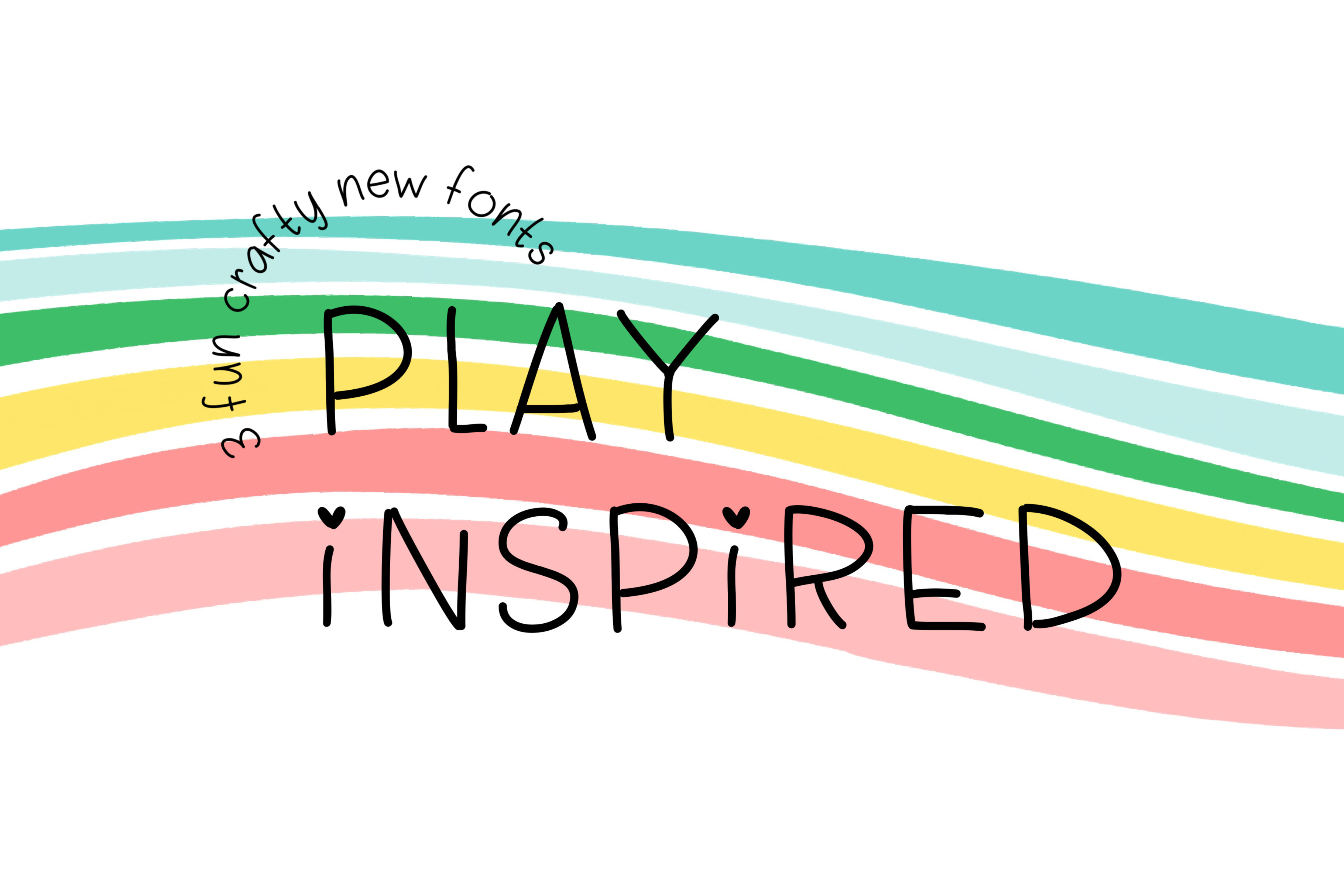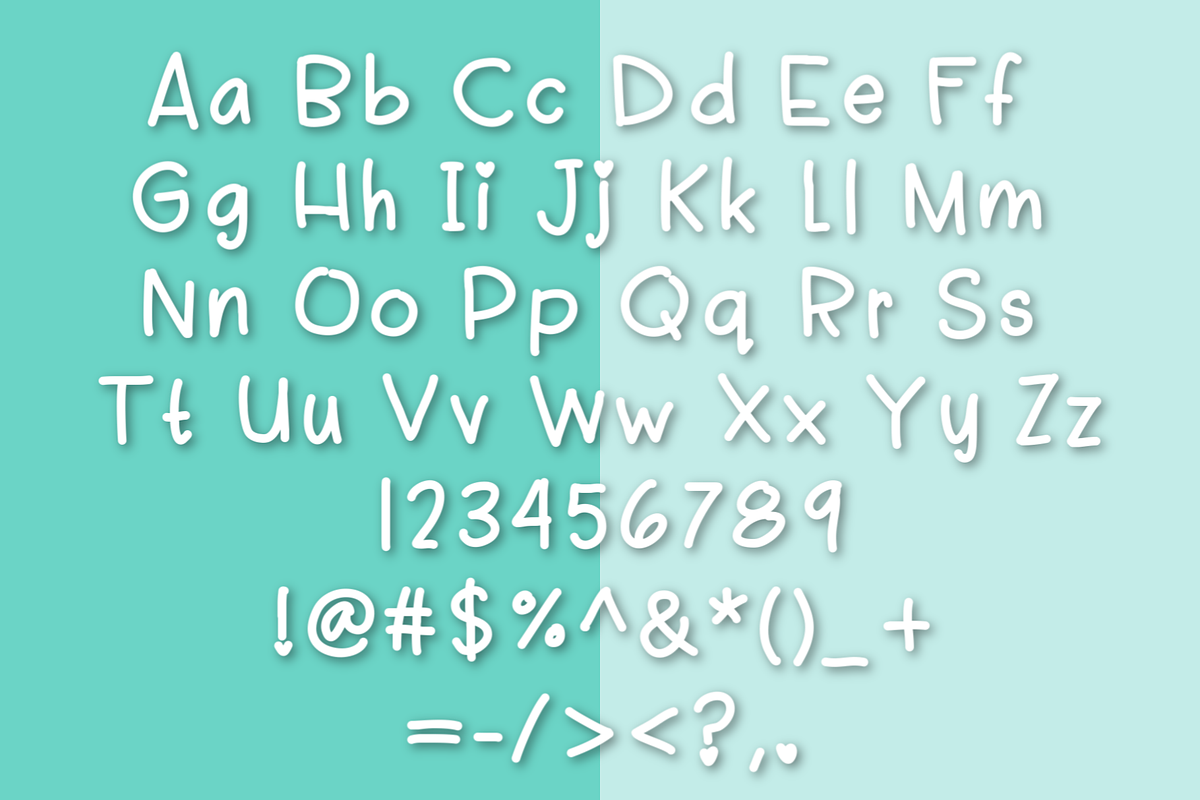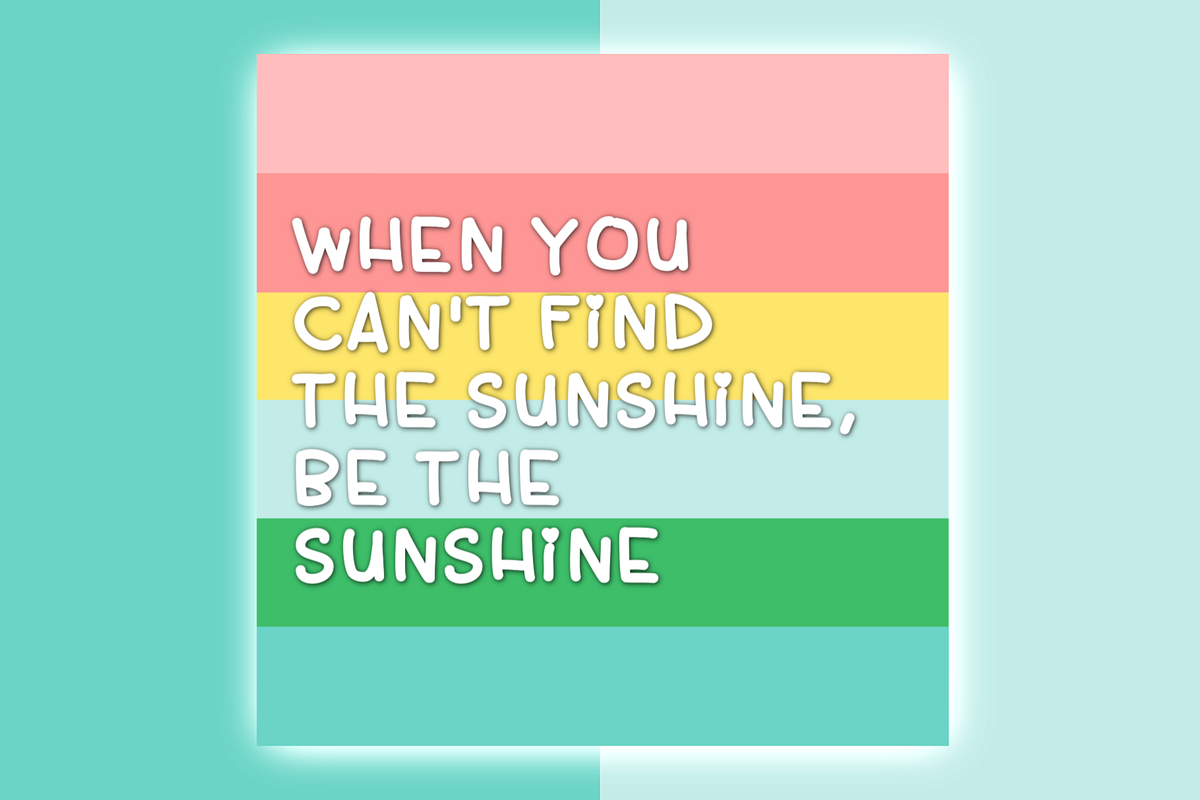
Play Inspired Fonts & Backgrounds
3 NEW Crafty Handwritten Fonts 14 Bright Backgrounds | JPEG 4000X4000 px Perfect for paper crafting, invitations, party decor, t shirts and more!